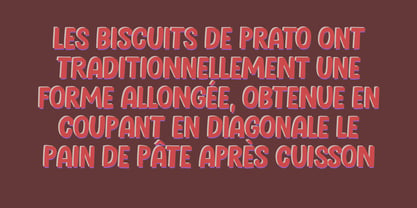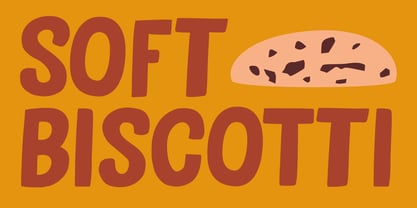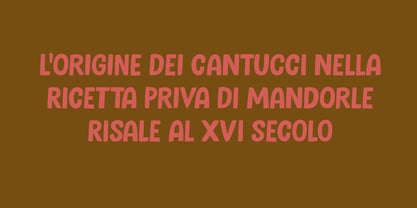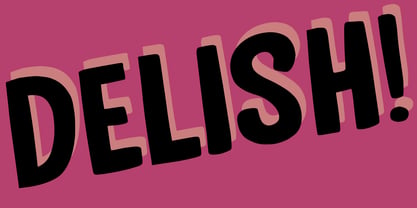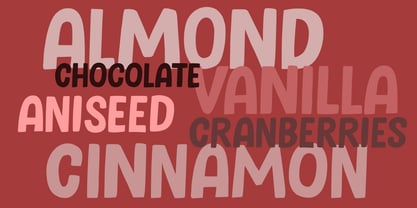
Soft Biscotti Pro
von Hanoded
Die Schriftfamilie Soft Biscotti Pro wurde von David Kerkhoff entworfen und von Hanoded veröffentlicht. Soft Biscotti Pro enthält 2 Stile und Familienpaketoptionen. Mehr über diese Familie
I just love biscotti; they’re one of my favourite cookies! I thought they were all rock hard and half-moon shaped, but I found out that there’s a ‘soft’ variety as well, mainly aimed at young children who may have trouble munching on the hard cookies.
Soft Biscotti is a handmade, all caps font. It comes with extensive language support and a set of alternates for the lower case letters.
Designer: David Kerkhoff
Foundry: Hanoded
Hanoded is run by Dutchman David Kerkhoff. His fonts are a mishmash of styles, as he just creates whatever pops into his head. You will find a lot of brush fonts in his collection, as his favourite tools are brushes and Chinese ink, with cartoon style fonts and script fonts complementing his repertoire. Aside from making fonts, David occasionally guides tours in far-flung places, renovates his '30's house and tries reasoning with his wife and (teenage) kids. Not an easy task!